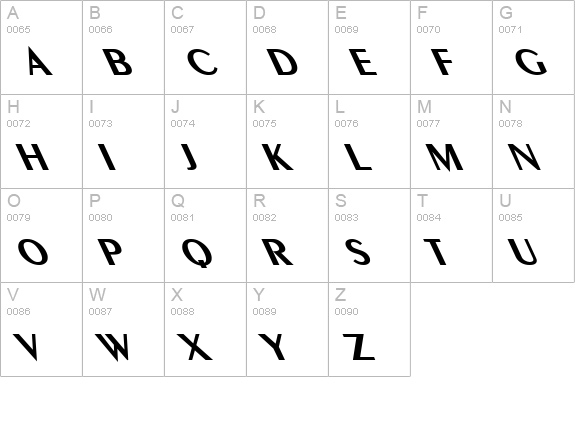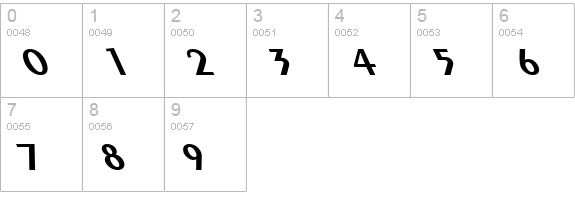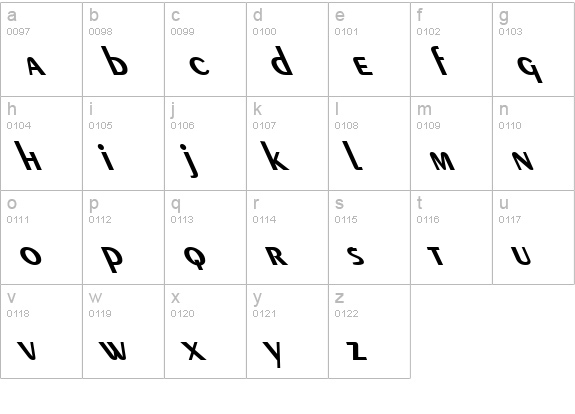
Pare Reverse BoldItalic Font Details
Introducing Pare Reverse BoldItalic font, a striking and unique typeface that combines elegance with a touch of playfulness. With its bold and italicized design, this font is perfect for adding a touch of sophistication and creativity to any project. The Pare Reverse BoldItalic font features a distinctive reverse contrast, with thick vertical strokes and delicate thin horizontals, creating a visually stunning effect. Its bold and italicized variations make it versatile and suitable for a wide range of design purposes, from eye-catching headlines to stylish logos and branding materials. But that's not all - what sets Pare Reverse BoldItalic font apart is that it is available for free! That's right, you can easily download this exceptional font at FontsMarket.com without any cost. Whether you are a professional designer or a hobbyist, this free font gives you the opportunity to enhance your projects without breaking the bank. So why wait? Embrace the beauty and versatility of Pare Reverse BoldItalic font today. Download it for free at FontsMarket.com and elevate your designs to a whole new level.